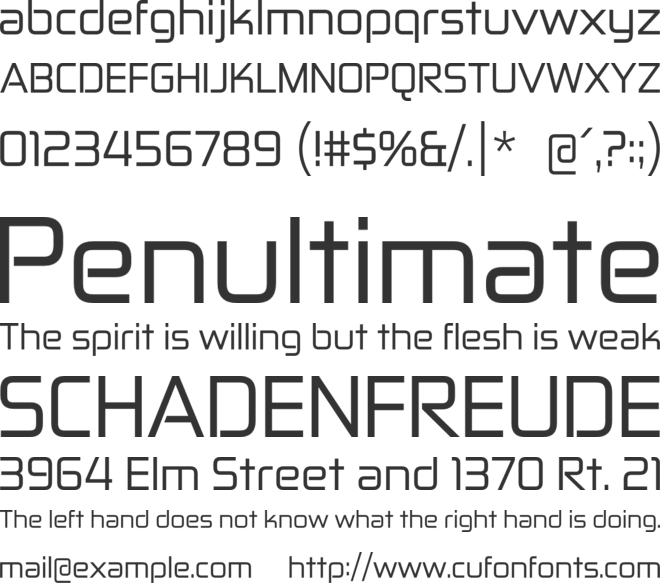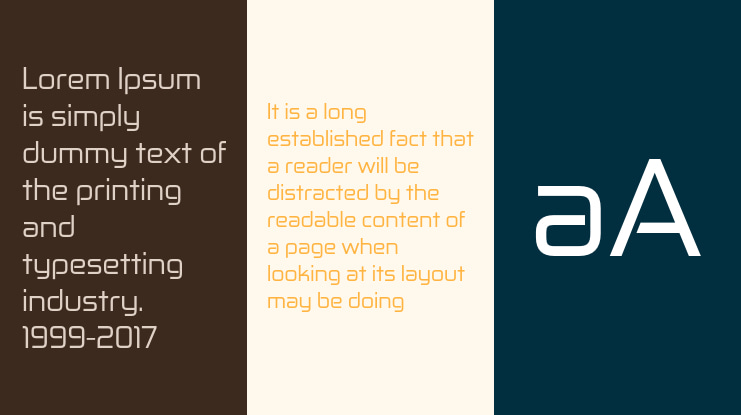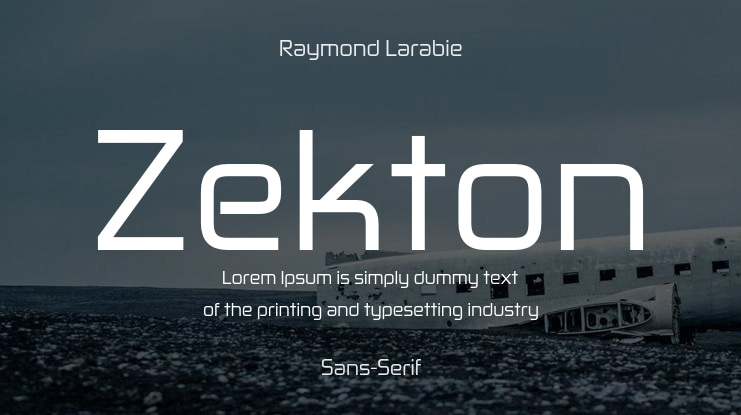
Raymond Larabie
Zekton gives technology organizations a recognizable square-sans system that can extend far beyond a futuristic logo. It suits product families, network hardware, cybersecurity, semiconductor equipment, factory automation, satellite terminals, conferences, equipment markings, recruitment campaigns, presentations, and infrastructure brands that need lasting visual continuity.